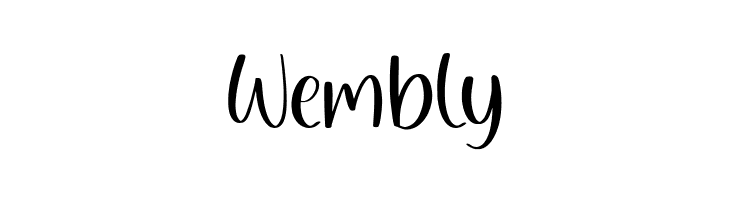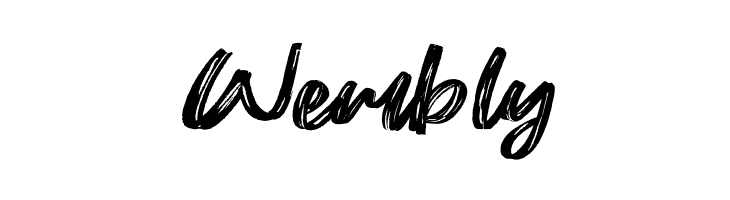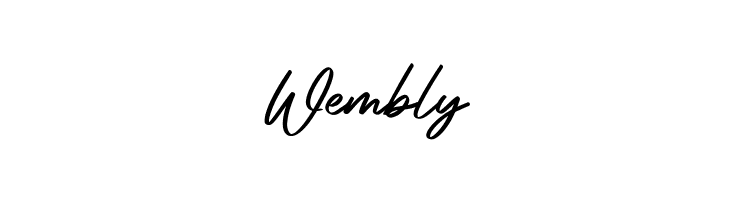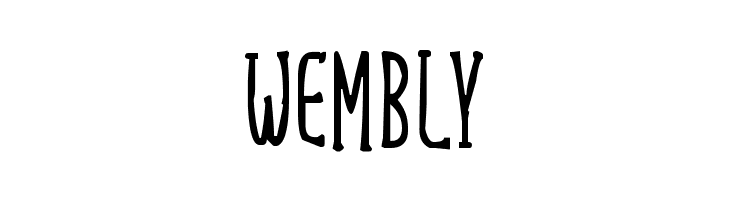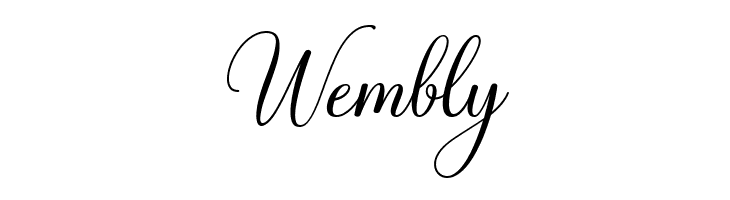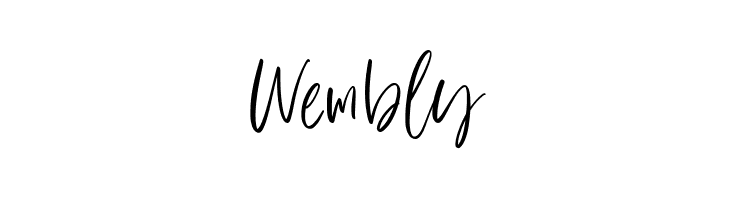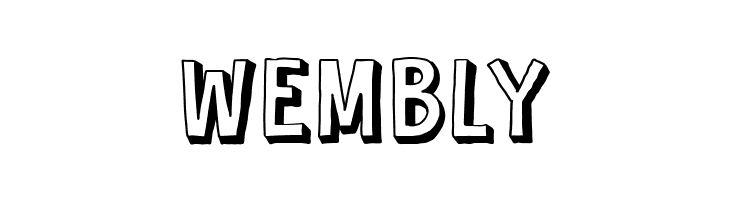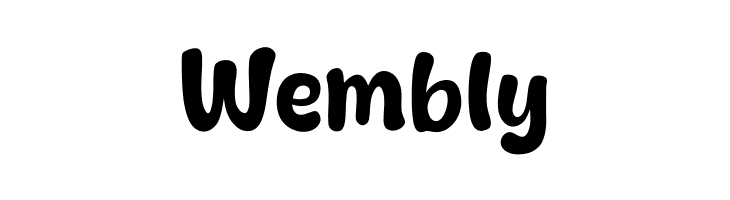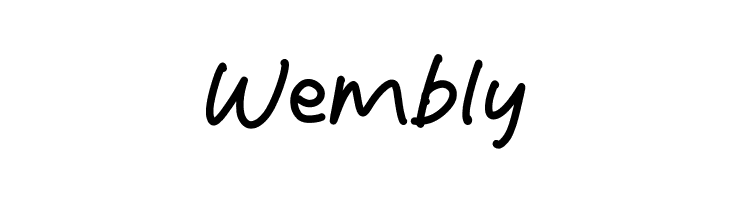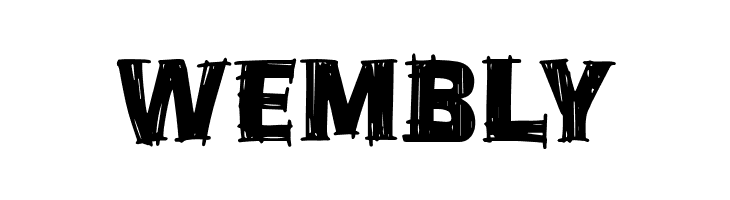
A playful, bold font with thick strokes and rounded edges, ideal for comic-style designs.
A bold, comic-style font with a playful, hand-drawn appearance.
A bold, alien-like script with rounded shapes and a mysterious aesthetic.
A bold, italicized font with a futuristic, alien-like design.
A bold, distressed font with a grunge texture and strong visual impact.
A bold, rounded font with a modern and clean aesthetic.
A bold, alien-inspired decorative font with rounded shapes and a futuristic vibe.
A bold, italicized font with a playful and whimsical design.
Bold, modern script with playful, handwritten style.
An elegant, flowing script font perfect for sophisticated designs.
A casual, handwritten font with smooth curves and a friendly appearance.
A playful, hand-drawn font with tall, narrow characters and a whimsical style.
A playful, rounded font with whimsical decorative elements.
A playful, whimsical script font with a handwritten style.
A playful, rounded font with smooth curves and a friendly appearance.
A bold, expressive handwritten font with uneven strokes and dynamic energy.
A bold, futuristic font with angular, geometric shapes and a tech-inspired design.
A bold, dynamic brush script font with expressive strokes and a hand-painted look.
A flowing, cursive script font with elegant, connected characters.
A decorative serif font with ornate and whimsical flourishes.
A playful, handwritten font with a casual and whimsical style.
A bold, hand-drawn font with a playful, outlined style.
A lively handwritten font with dynamic strokes and a playful energy.
A playful, cursive font with smooth, flowing strokes and elegant charm.
A bold, geometric font with sharp angles and a strong presence.
A smooth, flowing script font with a natural handwriting style.
An elegant script font with flowing, interconnected characters and refined flourishes.
A playful, flowing script font with smooth, rounded edges and consistent stroke width.